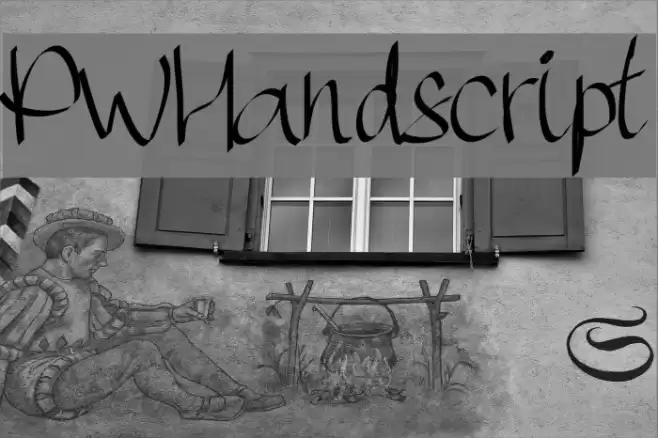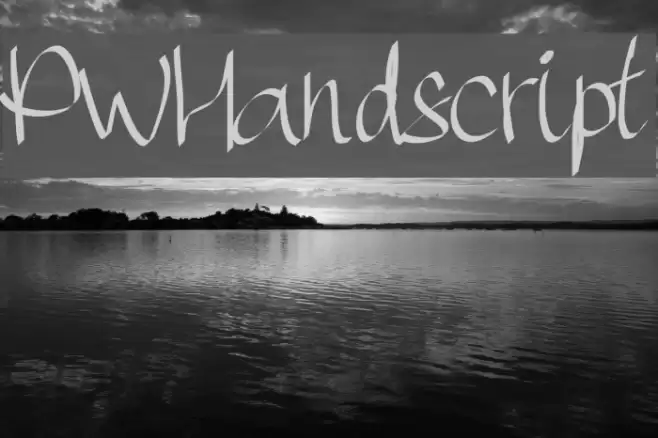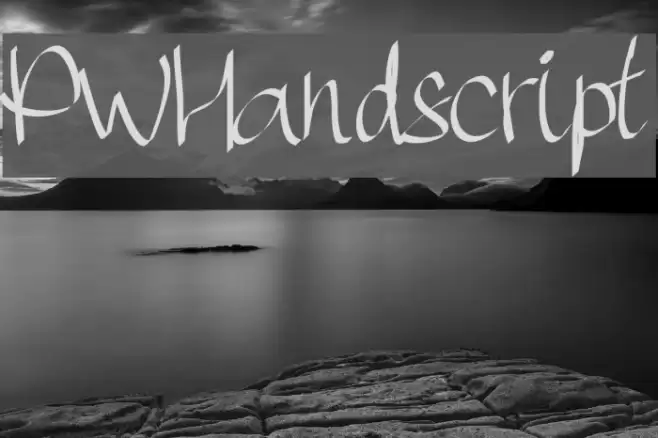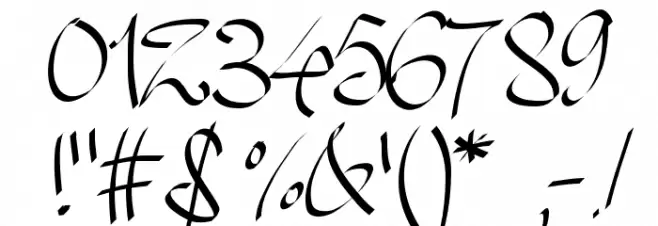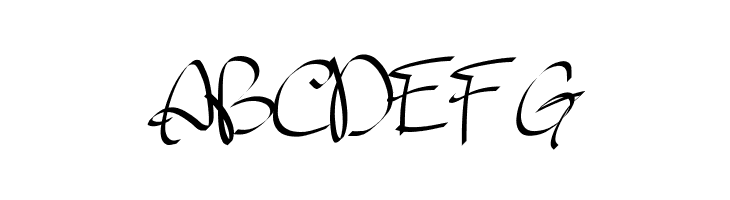
PWHandscript Font
PWHandscript Description
This font exhibits a dynamic and expressive handwritten style, characterized by its fluid and cursive letterforms. The strokes are varied, with a noticeable contrast between thick and thin lines, giving it a lively and artistic appearance. The uppercase letters are bold and sweeping, while the lowercase letters maintain a consistent flow, enhancing the overall script-like quality. The numerals and special characters follow the same energetic style, making the font versatile for creative projects. Its unique flair makes it suitable for designs that require a personal touch or an artistic vibe.
A dynamic and expressive handwritten script with fluid, cursive letterforms from Uncategorized fonts.